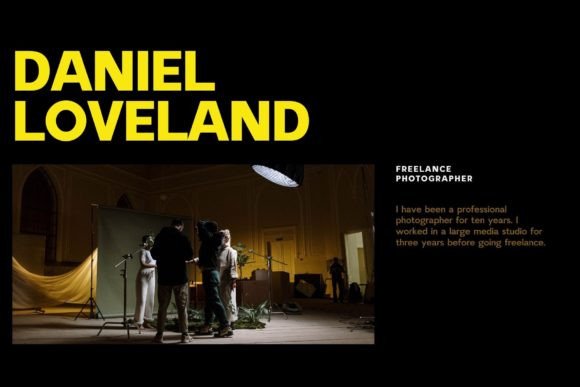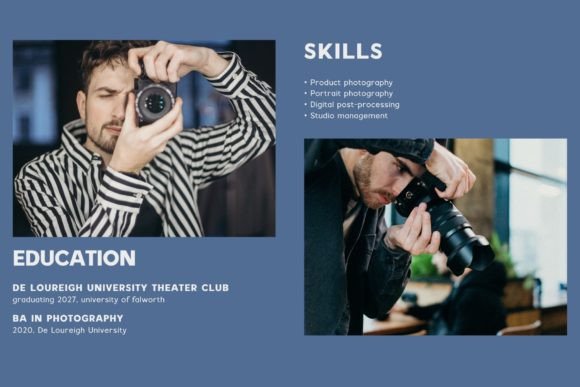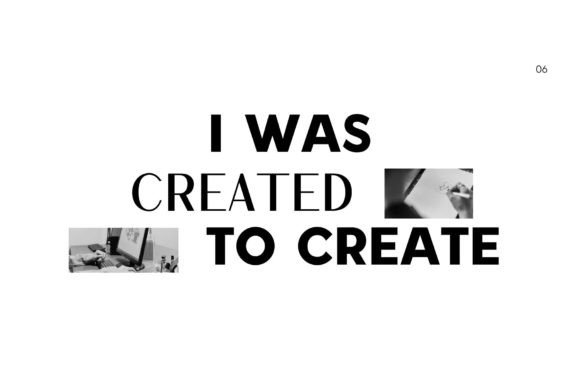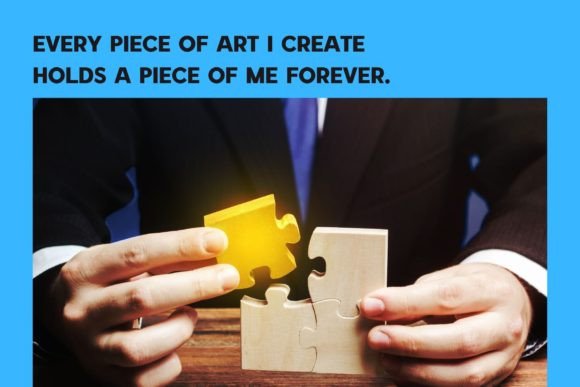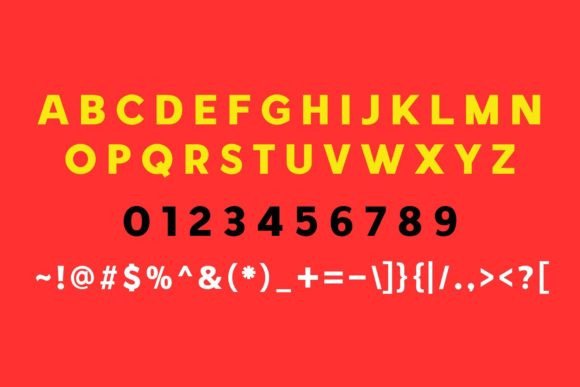
Introduction to Keneth Font
Have you ever stared at a blank canvas, unsure of how to bring your creative vision to life? The thrill of a new project is exhilarating, but the pressure to deliver something exceptional can be overwhelming. For designers, this moment of uncertainty is a familiar feeling – one that can be alleviated by having the right tools at your disposal. Enter Keneth Font, a modern and bold sans-serif font that’s poised to elevate your creative project to new heights.
With its sleek sophistication and strong, contemporary edge, Keneth Font is the perfect addition to any design arsenal. Whether you’re working on a high-quality branding project or a free download for a client, Keneth Font’s clean lines and robust presence are sure to make a statement. And with its transparent background, you can rest assured that your design will shine through – unencumbered by distractions or clutter.
As a valuable resource for designers, Keneth Font offers a unique combination of style and versatility. Its confident and modern typographic style is perfect for headlines, titles, and any application where a strong visual impact is key. So why settle for mediocrity when you can unleash your creativity with Keneth Font?
Key Features of Keneth Font
- High-quality design: Keneth Font is a professional, high-quality font ideal for creative projects that require a touch of elegance and sophistication.
- Perfect for logos and branding: Keneth Font’s unique design and high-quality construction make it an excellent choice for logos, branding, and other creative projects.
Honest Review: Keneth Font
I recently came across the Keneth Font, and I’m excited to share my honest review with you. As a designer, I’m always on the lookout for high-quality design resources that can elevate my creative projects.
The Keneth Font is a beautifully designed font that offers a unique and creative flair to any project. With its transparent background, it’s perfect for designers who want to add a touch of elegance to their designs.
- High-quality design: The Keneth Font is meticulously crafted to provide a professional look and feel.
- Customizable: The font is highly customizable, allowing designers to tailor it to their specific needs.
- Limited character set: The font only includes a limited character set, which may not be suitable for designers who need a font with a wide range of characters.
- Not suitable for small text: Due to its unique design, the font may not be suitable for small text sizes.
Overall, I’m impressed with the Keneth Font. It’s a great design resource for designers who want to add a touch of creativity to their projects. While it has some limitations, I believe it’s worth considering for your next creative project.
Tips for Getting the Most Out of Keneth Font
1. Use Keneth Font on a transparent background to give your design a clean and modern look.